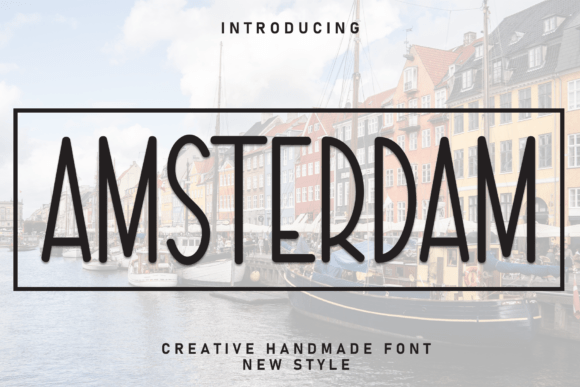
The Elegance of Amsterdam Font: A Designer’s New Best Friend
I still remember the design project that led me to discover the Amsterdam Font. I was working on a fashion brand’s invitation suite, and I needed a font that exuded elegance and modernity. After hours of scouring through font libraries, I stumbled upon this beautiful, thin, and tall handwritten font. It was love at first sight! The airy lines and minimalist form of Amsterdam Font brought a level of sophistication to my design that I’d never achieved before. In this article, I’ll share my experience with this stunning font, its features, and how to make the most of it in your designs.
An Honest Review of Amsterdam Font
• ✨ Elegant and modern charm: Amsterdam Font brings a level of refinement to any project, making it perfect for fashion branding, invitations, and upscale packaging.
• ✅ Clean and legible: The font’s minimalist form ensures that your text is easy to read, even at smaller sizes.
• 💫 Effortless and stylish: Amsterdam Font adds a touch of sophistication to your design without overwhelming it.
While Amsterdam Font is an excellent choice for many projects, there are a few things to keep in mind:
• ⚠️ Limited use in body text: Due to its thin and tall nature, Amsterdam Font may not be the best choice for lengthy body text. It’s better suited for headings, titles, and short paragraphs.
• 🤔 Requires careful pairing: Amsterdam Font can be paired with other fonts, but it requires some care to ensure that the combination works well. Experiment with different pairings to find the perfect match.
The Story Behind Amsterdam Font
Amsterdam Font was designed by a young type designer who wanted to create a font that embodied the elegance and sophistication of modern Amsterdam. Inspired by the city’s canals, architecture, and fashion scene, the designer crafted a font that would bring a touch of refinement to any project. With its thin and tall lines, Amsterdam Font is a beautiful reflection of the city’s sleek and modern aesthetic.